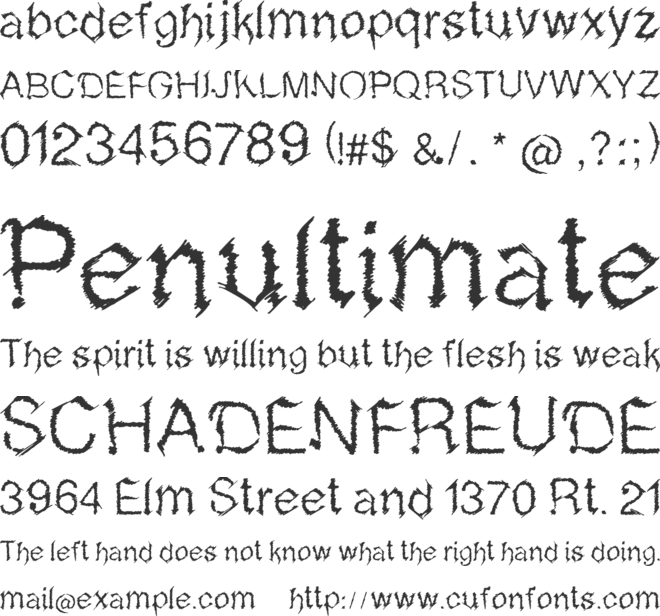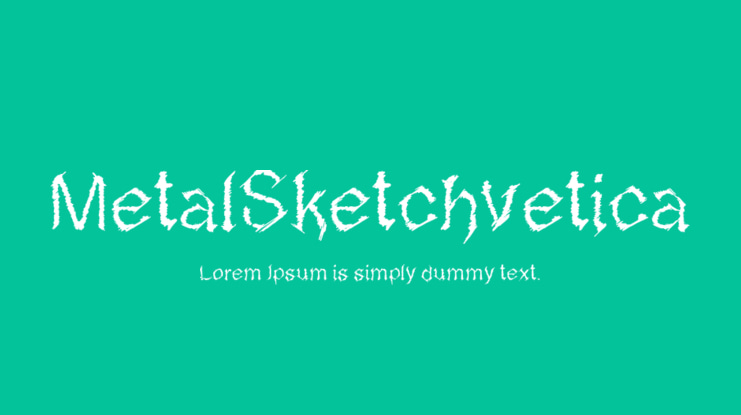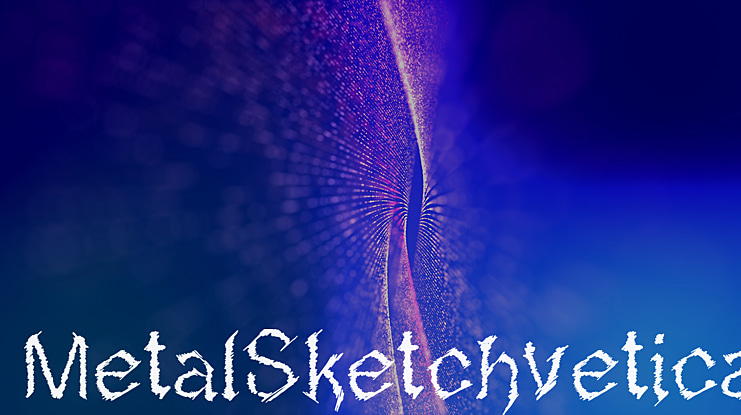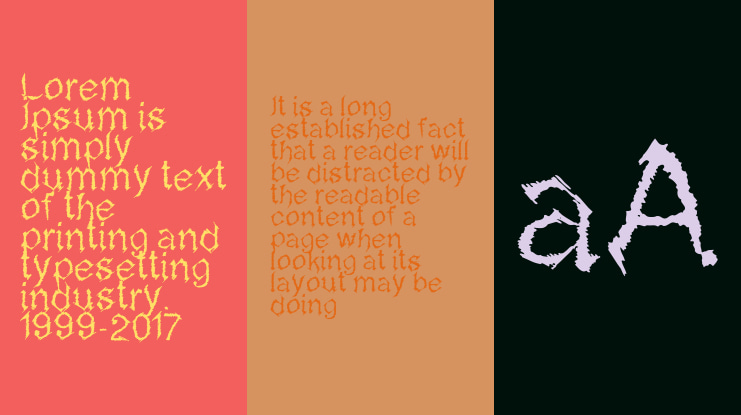
MetalSketchvetica Font
this font is free for personal and bussines combination from helvetica and fette fraktur more info contact:  visit http://findracadabra.blogspot.com/